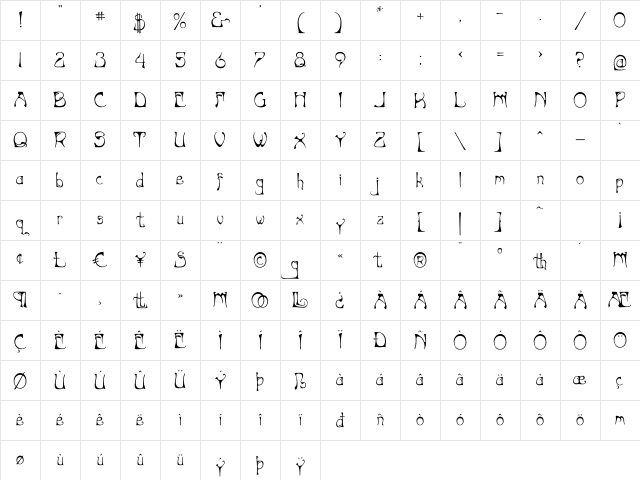
P22 Art Nouveau Bistro Regular
Foundry: P22 type foundry
Designer: Christina Torre
Design Context for P22 Art Nouveau Bistro
P22 Art Nouveau Bistro is a composed and adaptable typeface that performs quietly and consistently across a wide range of design contexts.
Pro Tip: Use P22 Art Nouveau Bistro in both headline and body roles to test its range before committing to a single application.